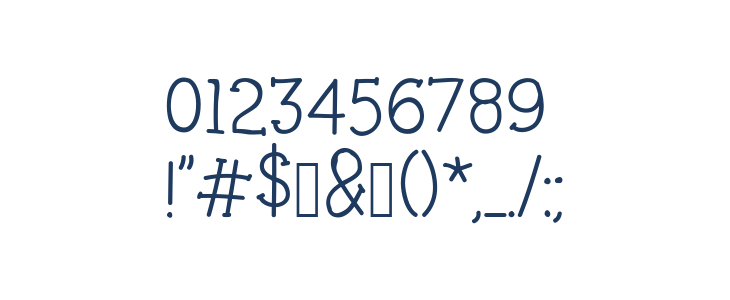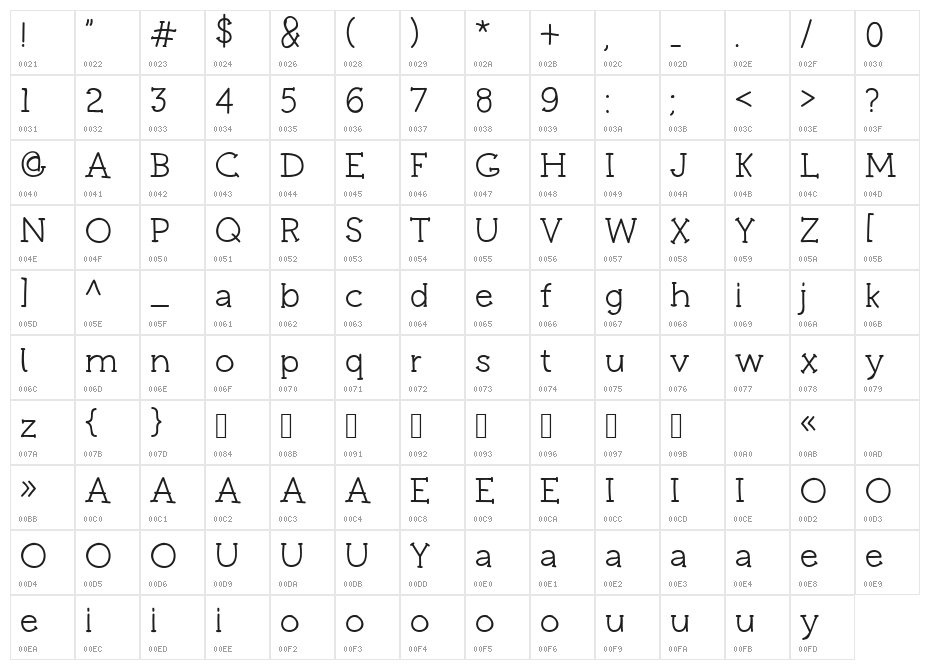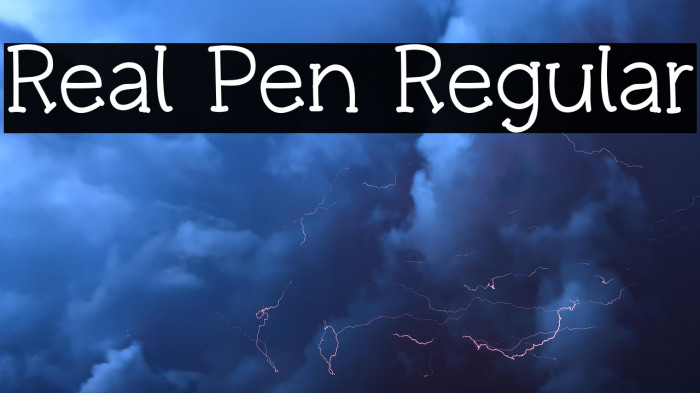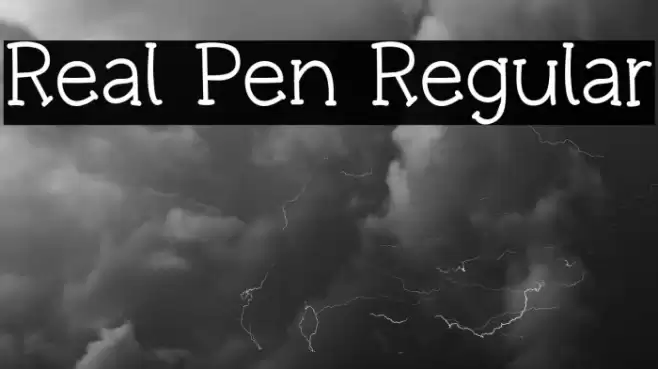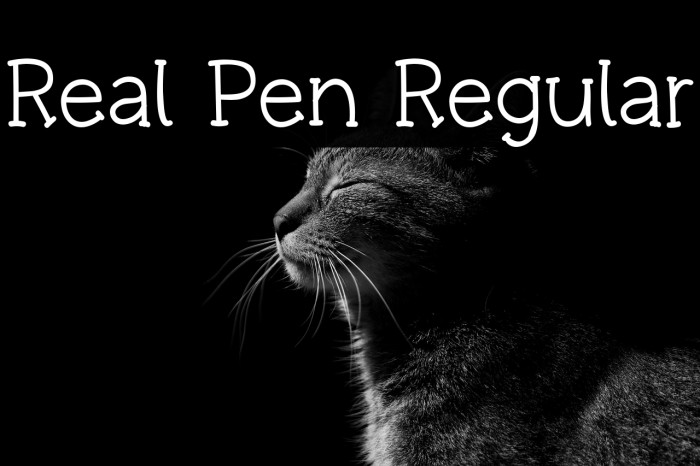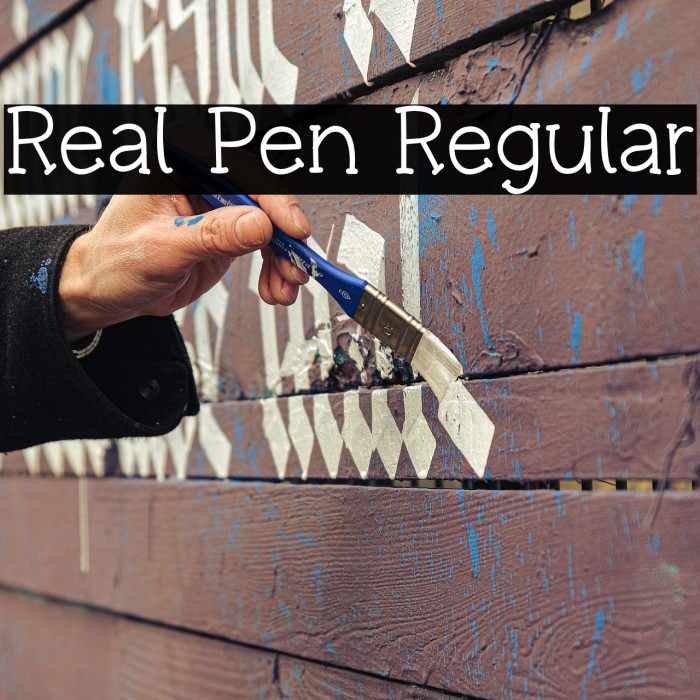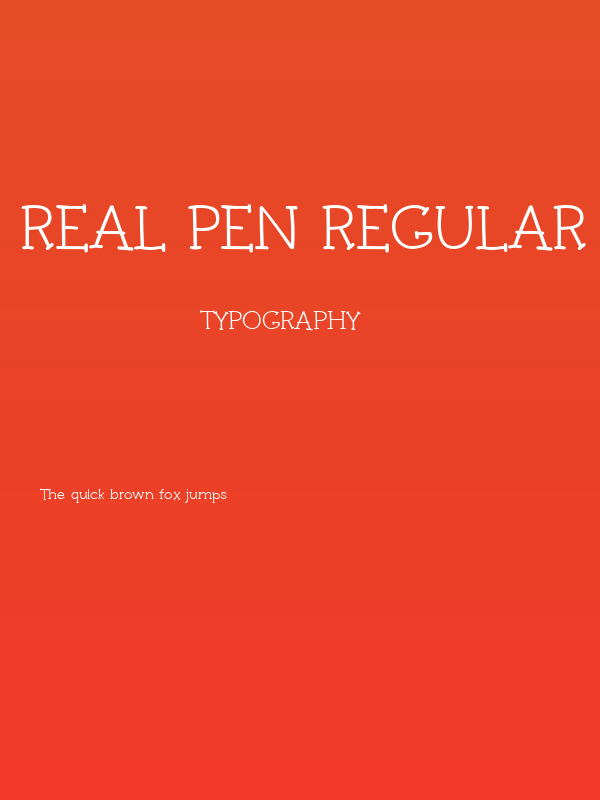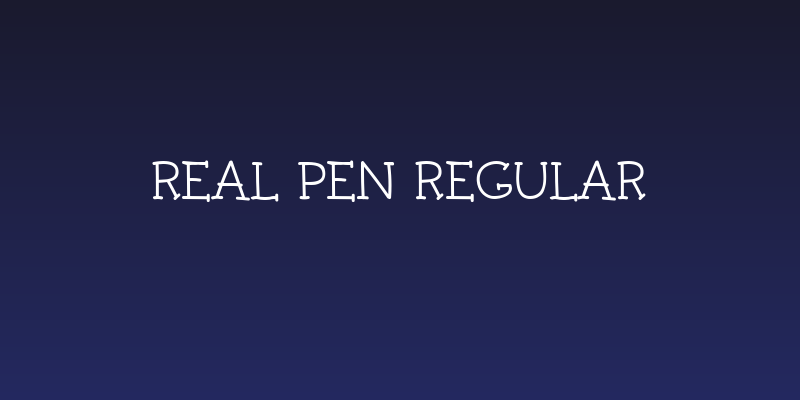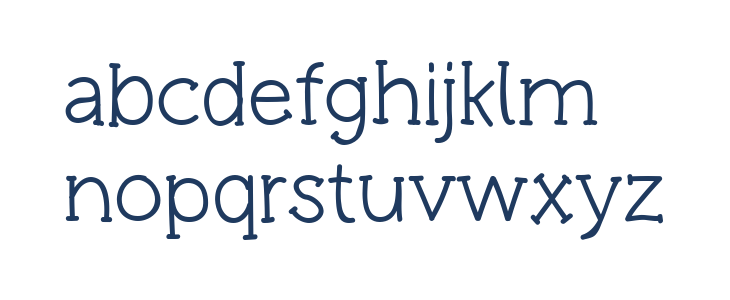
Real Pen Regular Font
Real Pen Regular Description
This font exhibits a playful and casual handwritten style, characterized by its slightly irregular strokes and rounded edges. The letters have a consistent flow, giving it a natural and approachable feel. The uppercase and lowercase characters maintain a uniform height, contributing to its readability. The numbers and special characters are crafted with the same playful touch, ensuring a cohesive look across all elements. This font is ideal for projects that require a personal and friendly tone, such as invitations, greeting cards, and informal branding.
| Use Case | Informal communications, personal projects, and creative designs. |
| Proposed Projects | Ideal for greeting cards, invitations, personal branding, and informal communications. |